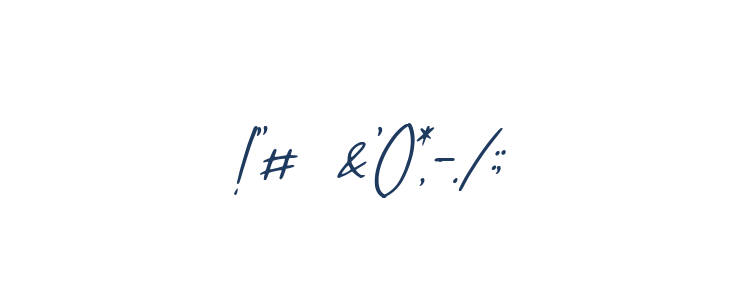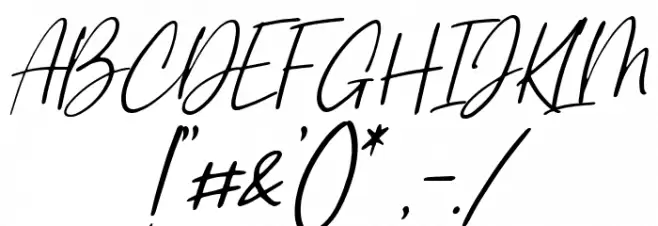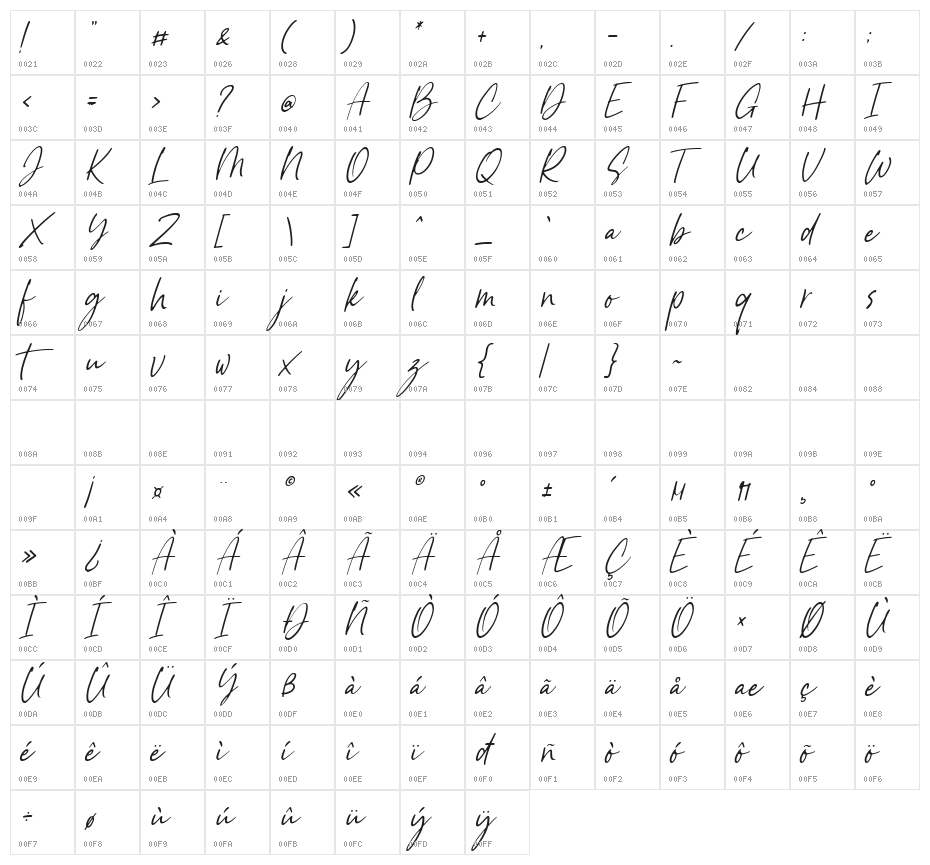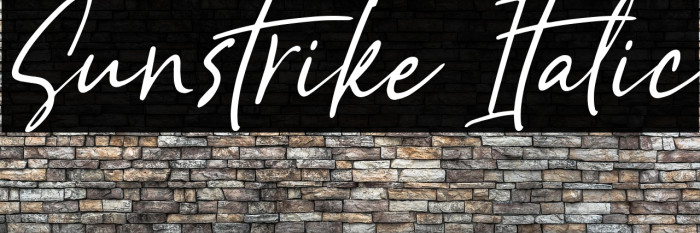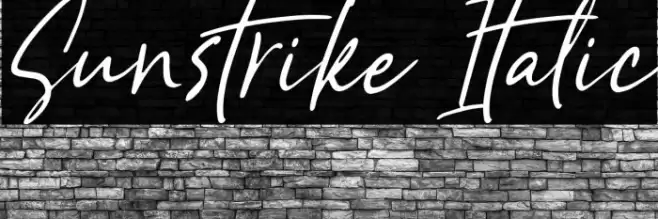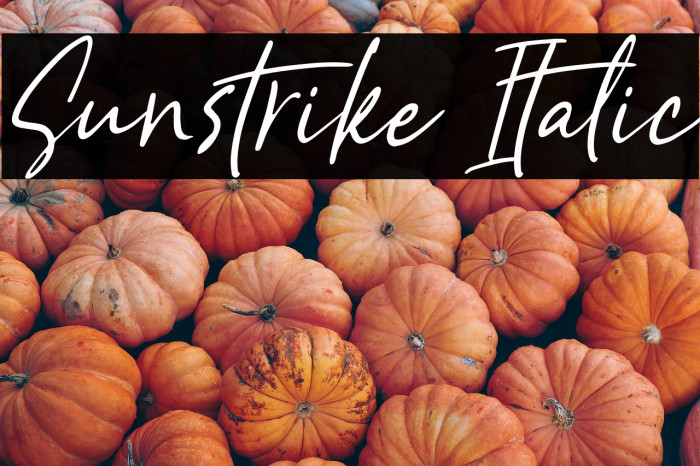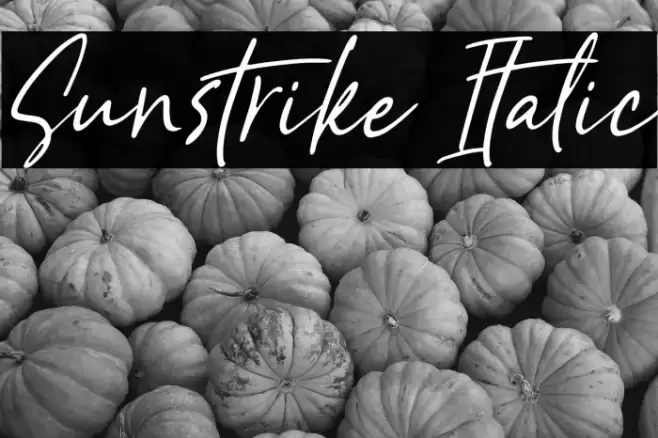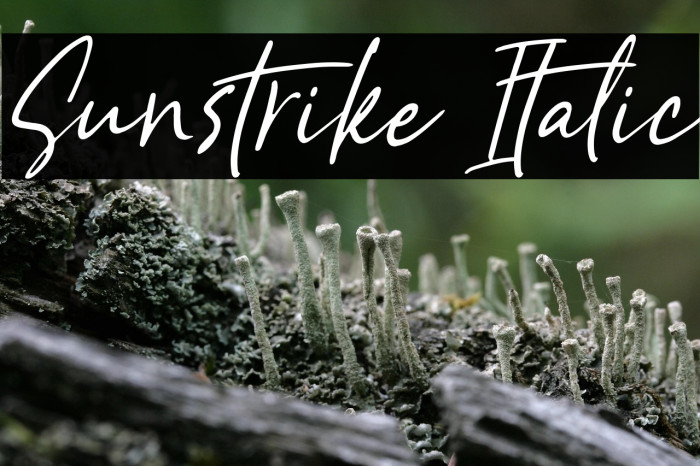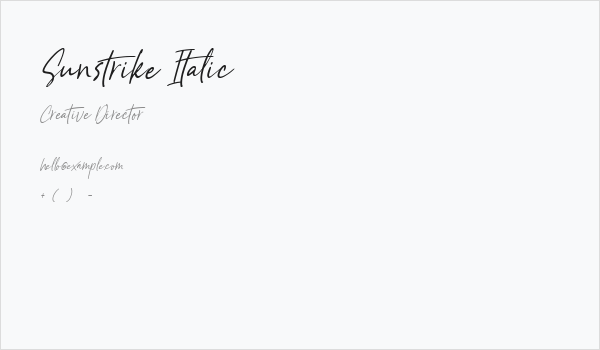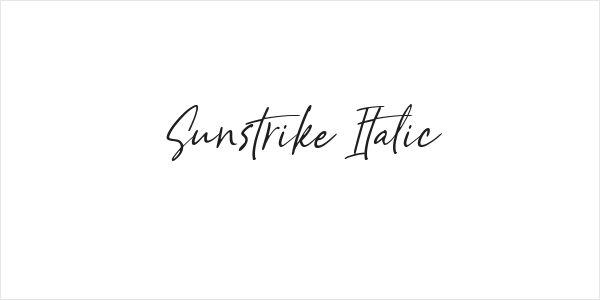
Sunstrike Italic Font
Sunstrike Italic Description
This font exhibits a dynamic and expressive handwritten style, characterized by its fluid and cursive strokes. The letters are slanted, giving it an italic appearance that enhances its energetic and informal feel. The uppercase and lowercase letters are well-balanced, with a consistent flow that mimics natural handwriting. The characters are slightly elongated, adding to the elegance and sophistication of the design. The font maintains a consistent stroke width, providing a harmonious and cohesive look. Special characters are integrated seamlessly, maintaining the overall aesthetic of the font.
| Proposed Projects | Ideal for personal branding, invitations, greeting cards, and creative projects that require a personal touch. |